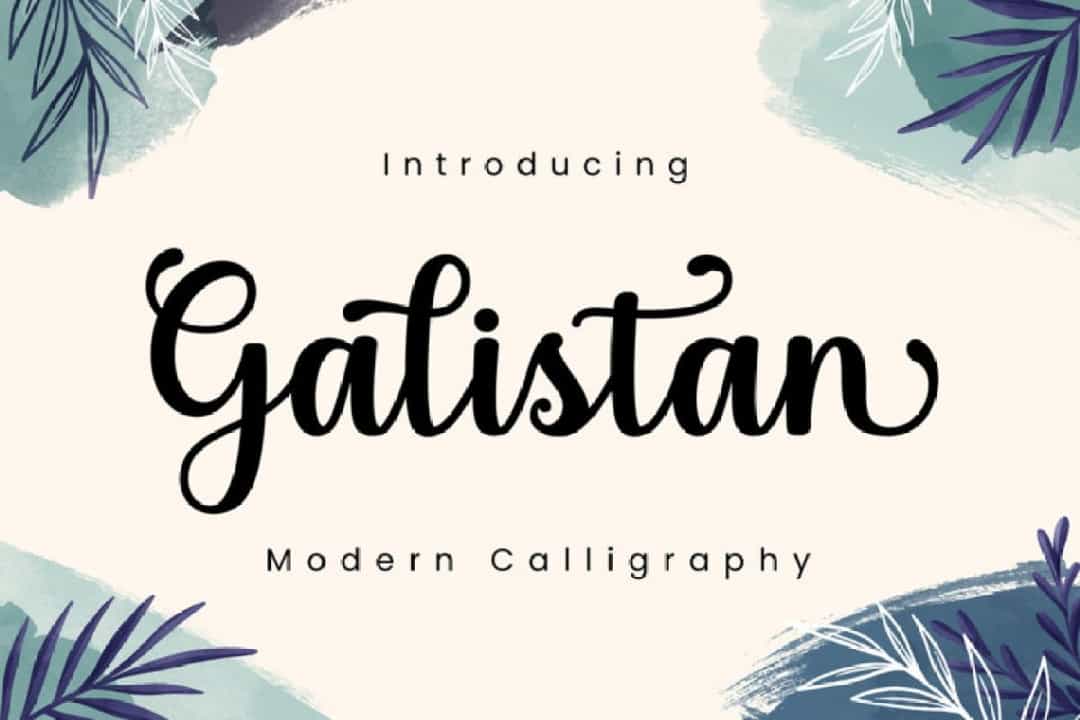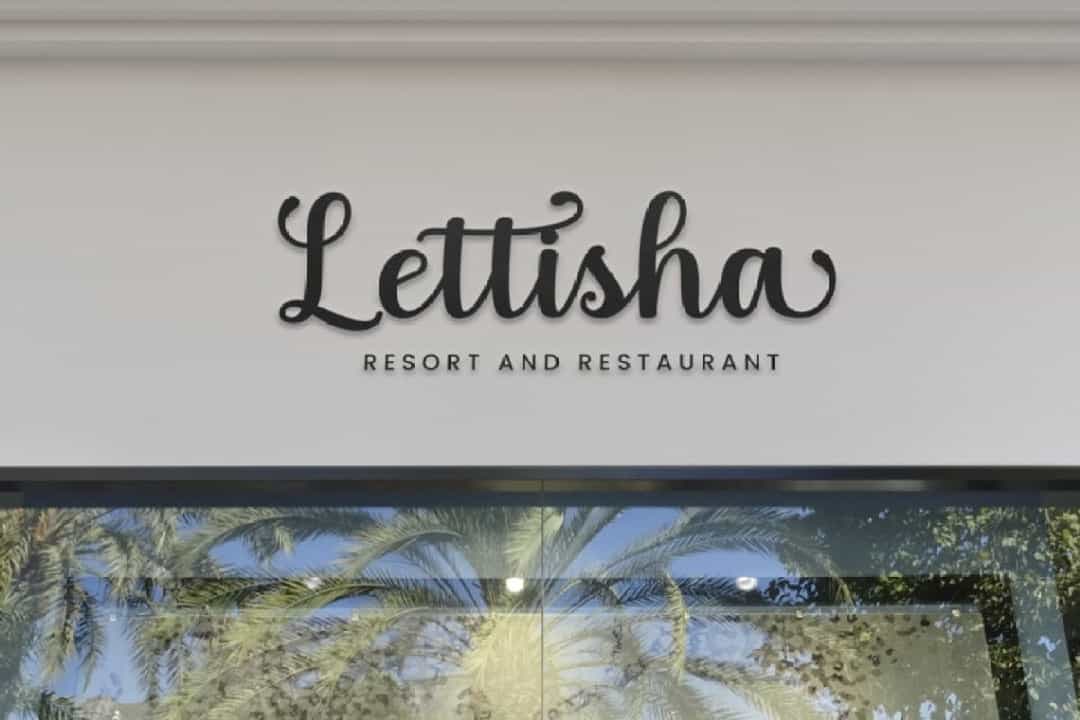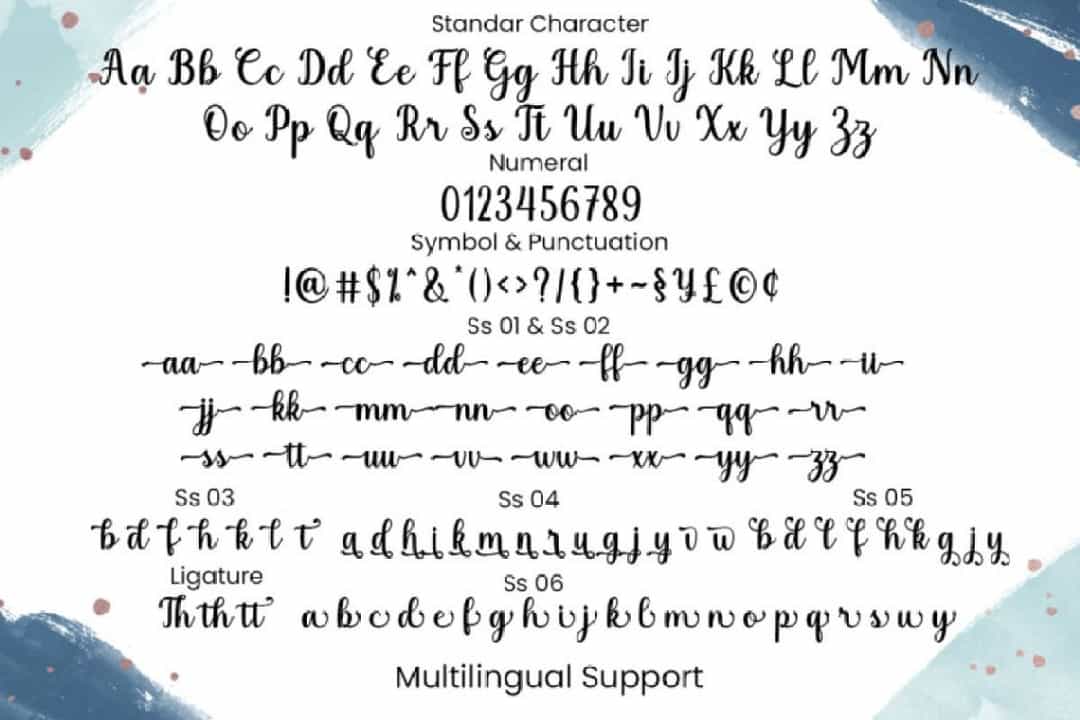
Galistan is a modern calligraphy font which provides a good balance in design that can be appropriate for many uses or people who are interested in vinyl or sticker designs. It is better to come with the creative ideas that you have and see how they are going to transform them into the reality!